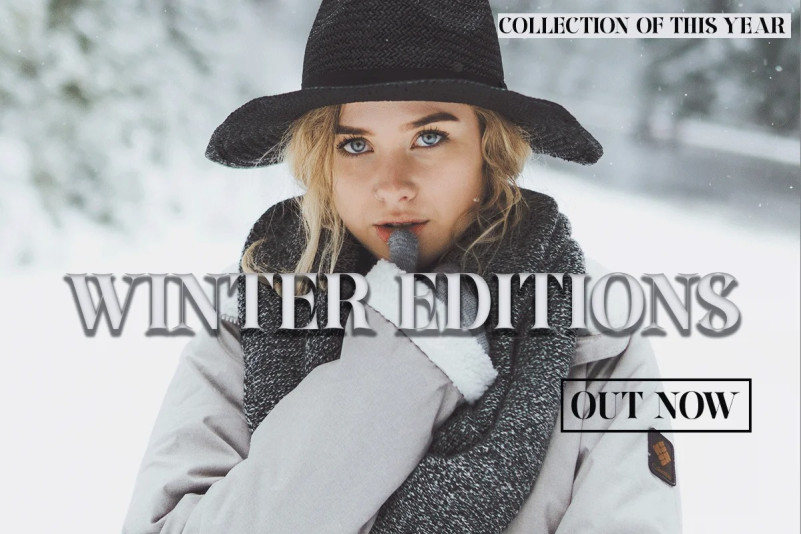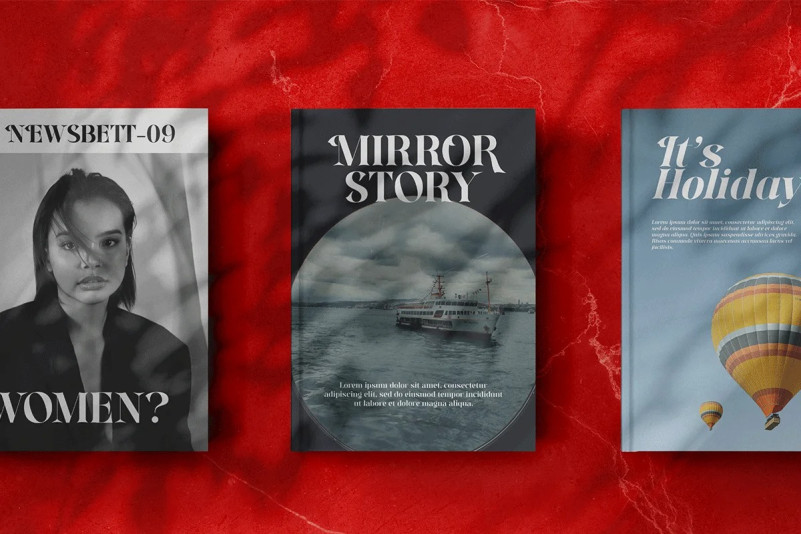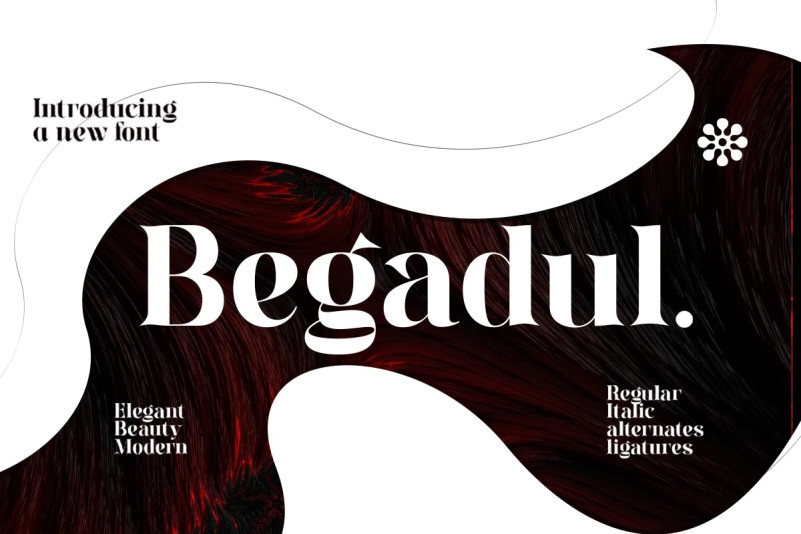
Begadul Font
Begadul Font is an elegant serif font with a contrasting thickness, very suitable for displays such as titles, greeting cards, magazine covers, and many more. This font will be a great addition to your library, as it will make every design a true piece of art.